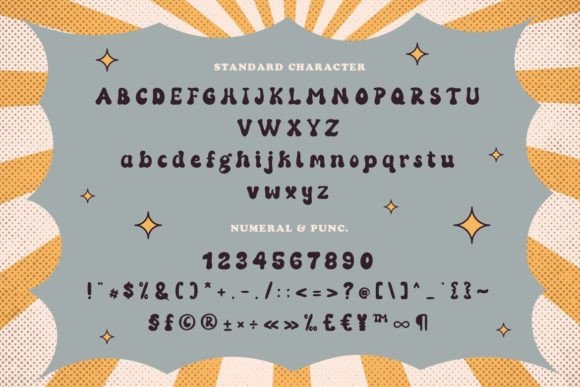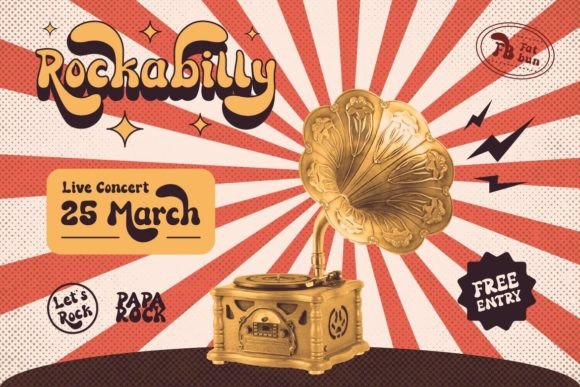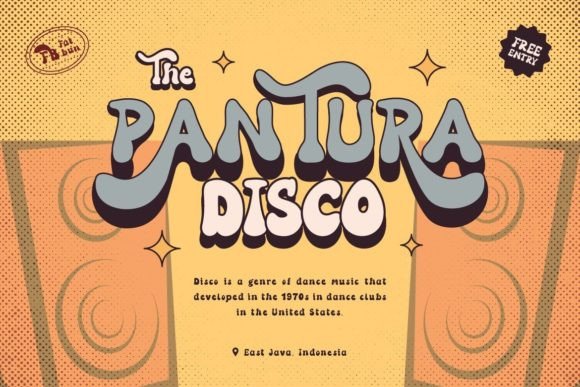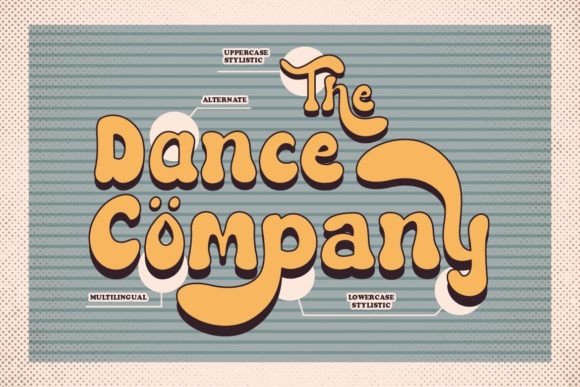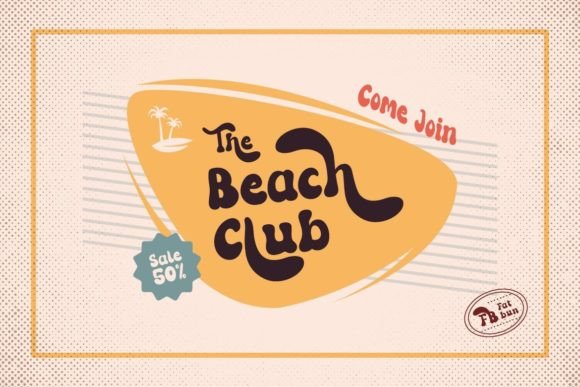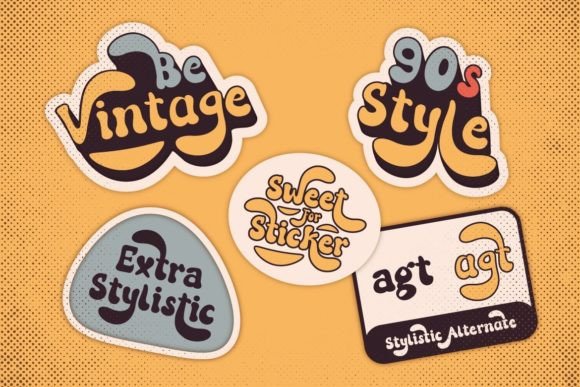
Introducing Fatbun Font: The Playful Hand-Lettered Bold Typeface for Your Creative Projects
Are you tired of using the same old fonts for your design projects? Look no further than Fatbun Font, a playful hand-lettered bold typeface that is inspired by classic groovy retro display fonts. This versatile font is perfect for a wide range of creative applications, from logo design and social media graphics to movie titles, book titles, and even long text letters.
The Inspiration Behind Fatbun Font
Fatbun Font is a nod to the classic display fonts of the past, with a modern twist. Its playful, hand-lettered design is reminiscent of the fun and carefree vibe of the 1960s and 1970s, making it perfect for designers and crafters who want to add a touch of nostalgia to their work. At the same time, the font’s bold and eye-catching design ensures that it will stand out in any context.
What Makes Fatbun Font So Versatile?
One of the things that sets Fatbun Font apart from other fonts is its versatility. This font is good for a wide range of applications, including:
• Logo Design: Fatbun Font is perfect for creating eye-catching logos that will help your brand stand out. Its bold and playful design makes it ideal for businesses that want to convey a fun and approachable vibe.
• Social Media: Whether you’re creating graphics for Instagram, Facebook, or Twitter, Fatbun Font is a great choice. Its bold design ensures that your message will get noticed, and its playful vibe will help you connect with your audience.
• Movie Titles: Add a touch of Hollywood glamour to your movie titles with Fatbun Font. Its bold and eye-catching design is perfect for creating titles that will grab the attention of your audience.
• Book Titles: Fatbun Font is also great for book titles, adding a touch of personality and whimsy to your book covers.
• Long Text Letters: While Fatbun Font is bold and eye-catching, it’s also legible enough to use for longer text passages. Use it for letters, emails, or any other written communication that you want to add a personal touch to.
Pairing Fatbun Font with Other Fonts
One of the best things about Fatbun Font is how well it pairs with other fonts. Its bold and playful design makes it a great choice for headlines and titles, while its clear and legible design ensures that it will work well as a secondary font for longer text passages. Try pairing Fatbun Font with sans serif fonts like Arial or Helvetica for a modern and sleek look, or with serif fonts like Times New Roman or Georgia for a more traditional feel.
Why Designers and Crafters Love Fatbun Font
Designers and crafters love Fatbun Font for its unique combination of playfulness and versatility. This font is perfect for anyone who wants to add a touch of personality to their work, whether they’re creating graphics for a client or working on a personal project. With Fatbun Font, you can:
• Add a touch of whimsy: Fatbun Font is perfect for adding a touch of whimsy and personality to your work. Its playful design ensures that your graphics will stand out and grab the attention of your audience.
• Create eye-catching headlines: Fatbun Font is bold and eye-catching, making it perfect for creating headlines that will grab the attention of your audience.
• Convey a fun and approachable vibe: Fatbun Font is perfect for businesses that want to convey a fun and approachable vibe. Its playful design ensures that your brand will come across as friendly and approachable.
Author Keristyper
Fatbun Font is a versatile and playful hand-lettered bold typeface that is perfect for a wide range of creative applications. Its bold and eye-catching design makes it ideal for headlines and titles, while its clear and legible design ensures that it will work well for longer text passages. Whether you’re a designer, crafter, or simply someone who loves to create, Fatbun Font is a great choice for anyone who wants to add a touch of personality and whimsy to their work.